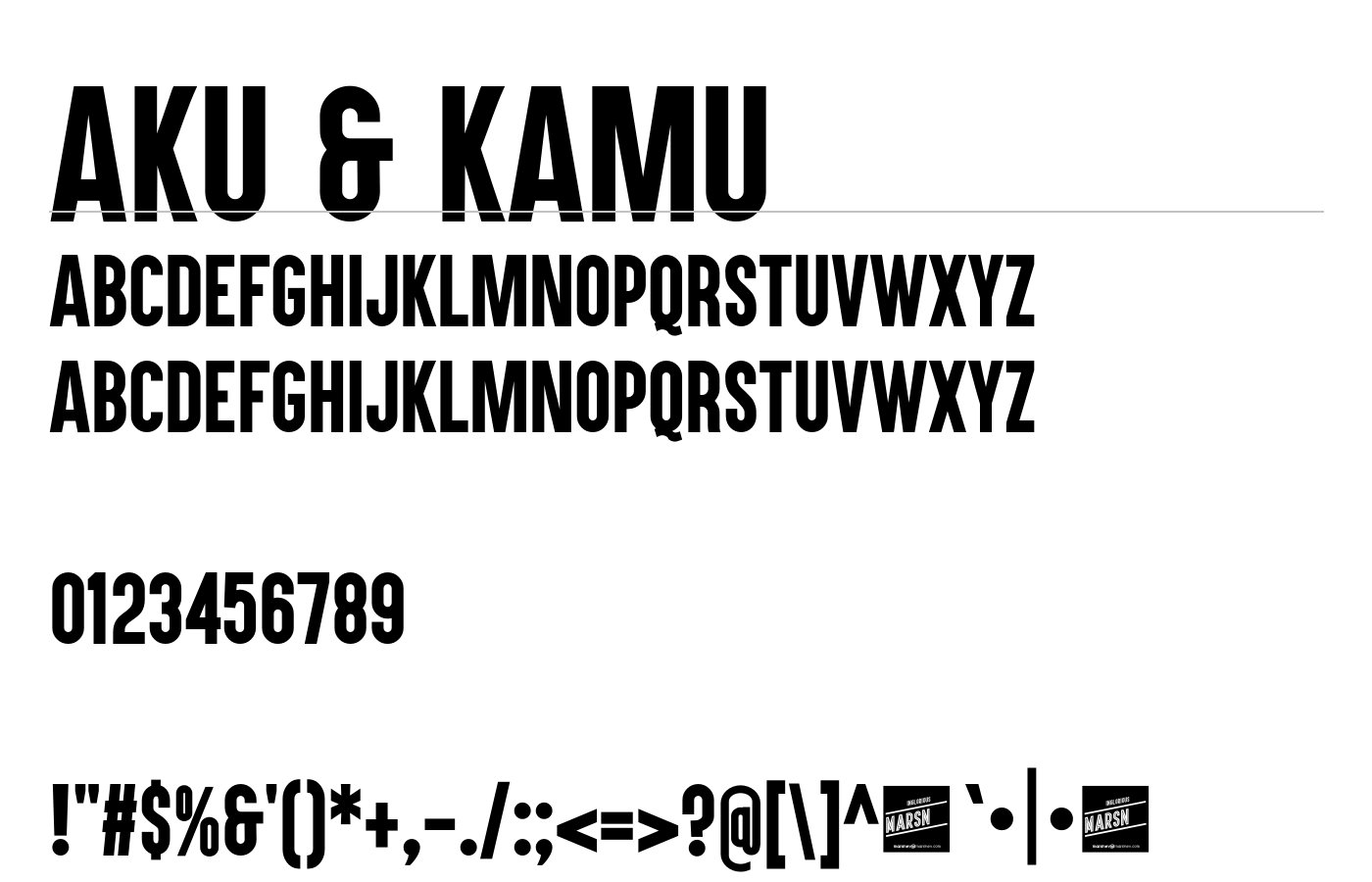
Aku & Kamu is a bold, condensed sans serif font characterized by its tall, narrow letterforms and uniform stroke weight. Its clean, modern design exudes strength and clarity, making it ideal for impactful headlines, logos, and branding where a strong visual presence is needed. This font works particularly well in fashion, editorial, or advertising contexts that demand a sleek and contemporary vibe.
Aku & Kamu Font